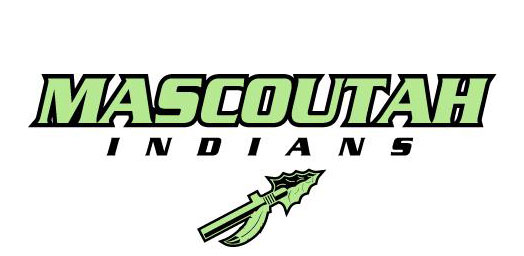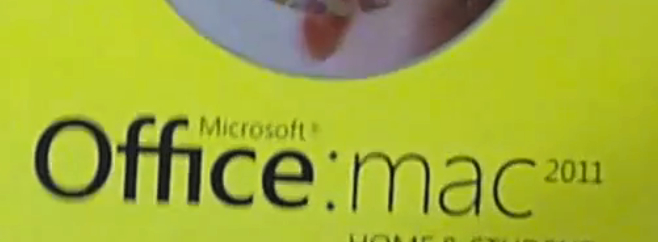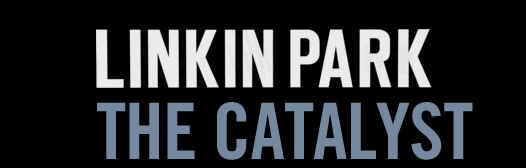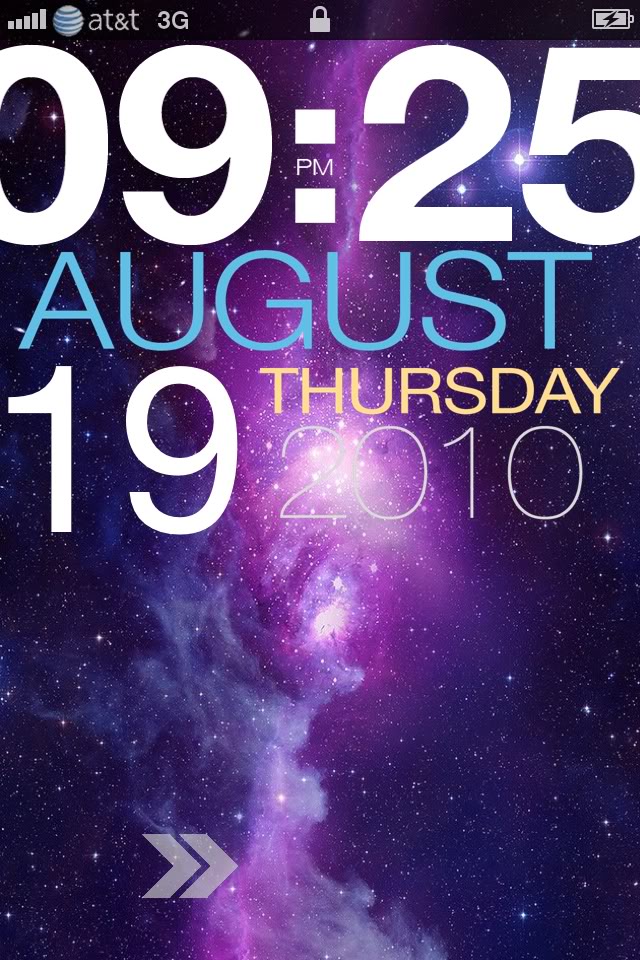
Can anyone recognize this font?
Edit: Now found. For anyone interested, it was Nueva Std.
does "Polo Ranch" look like a font or was it drawn ? If it's a font, any ideas as to what it is? And what's the other font too while I'm asking?
Need to Match this, it's close to a Dragon bold, but the cap "S" is not in the same family - any Guesses?
What font is this?
I really like this font, and want to know what it is. I can't seem to figure it out. Anyone know? It would help ALOT.
Name that Font!
Font detectors are having trouble with this one.
does "Polo Ranch" look like a font or was it drawn ? If it's a font, any ideas as to what it is? And what's the other font too while I'm asking?
Its a font.
Both of the 'O's are the same, also look at the 'P' in the 'R', its identical to the P written at the start, if that makes sense.
I think Myriad pro Semi-bold,, do any of you know how to put this font on Gimp?
I happen to know this because I have worked on some Apple designs in the past. It's a font that's quite heavily guarded by Apple. It's called Myriad Set and you can't find it on the internet. You have to get it from an authorized Apple rep in their marketing team and they make you sign a release saying you won't distribute it. It's very similar to Myriad Pro or just plain old Myriad but not exact. Most ppl would never know the difference between the two, so you could fake it with Myriad Pro but the exact font is Myriad Set.
But its not free... has anybody looking something same to the Newsanse font?
I'll be honest, I'm struggling to see the differences between that sample and Helvetica with the horizontal scale tweaked fractionally.
Edit to add: Ah, no… got it now. The differences are so small that I would have thought almost no-one would notice if you did use Helvetica.
Office 2011 Font
What font does MS use for its office 2011 logo?